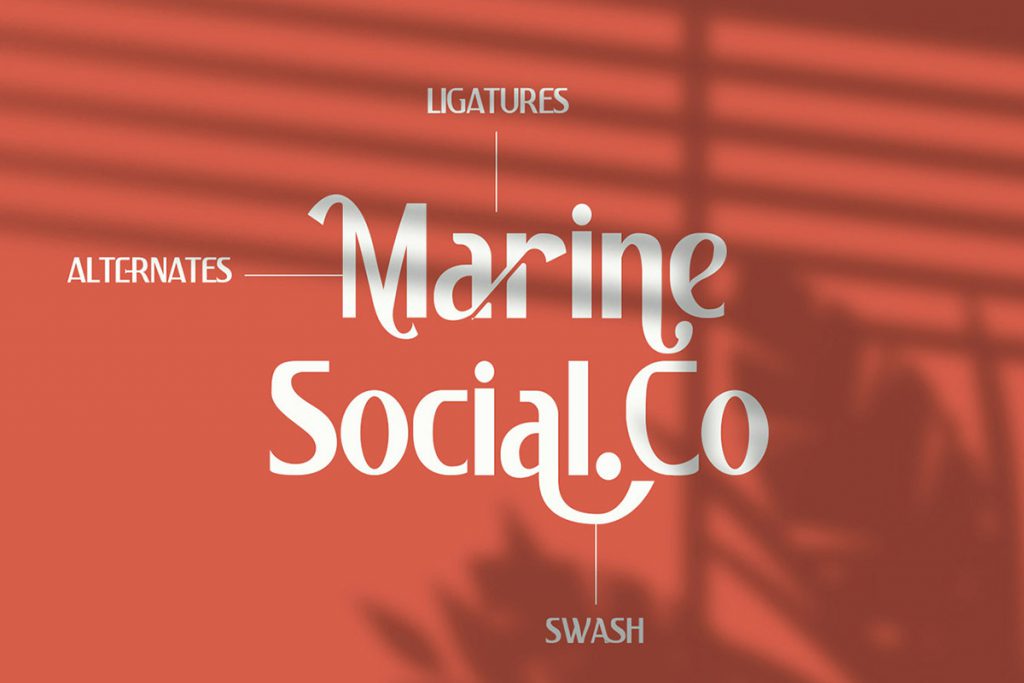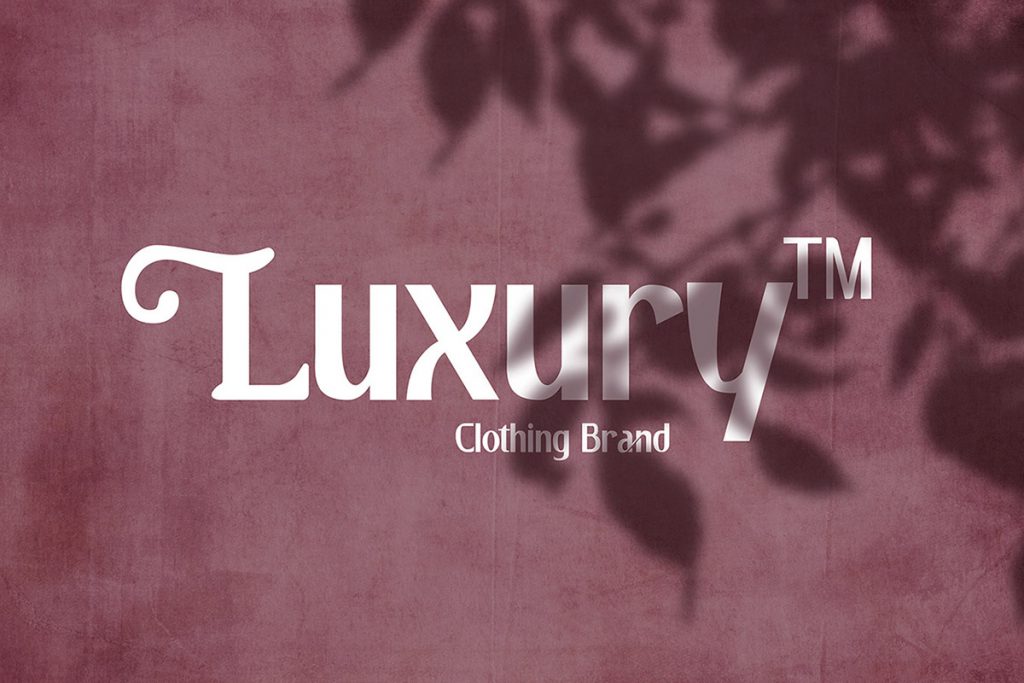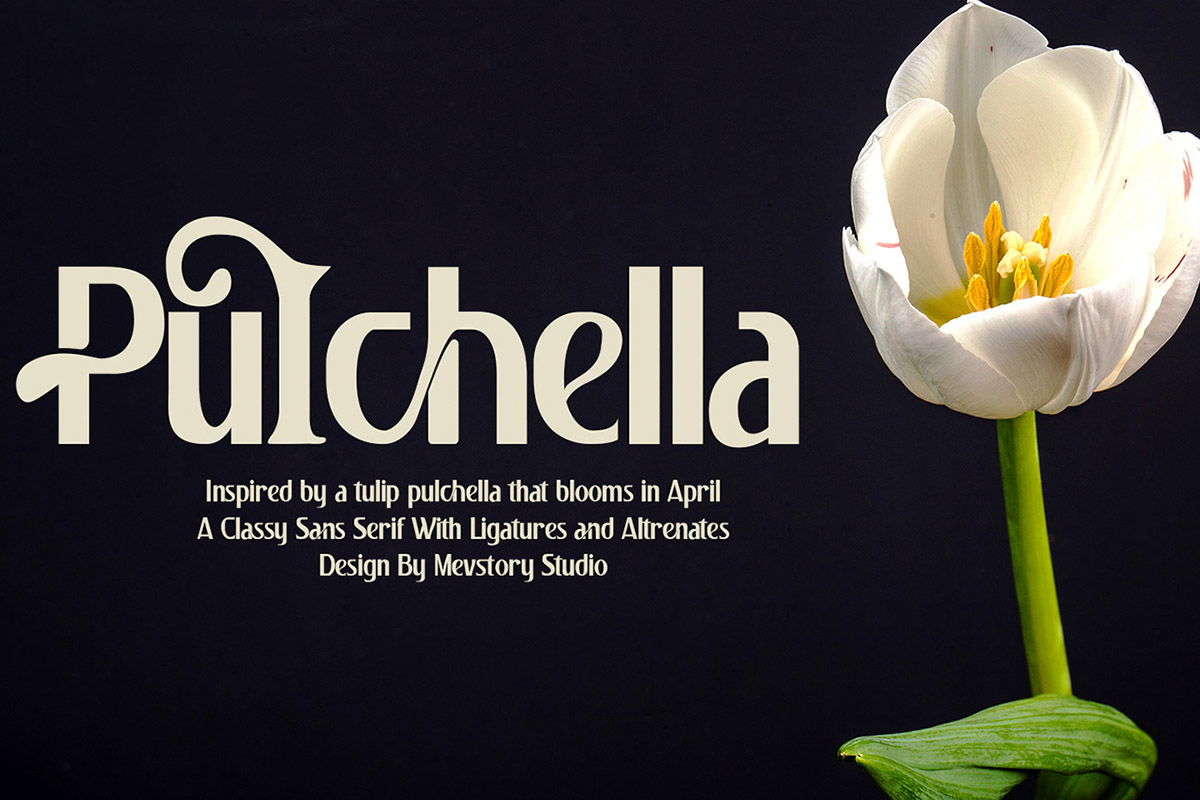
Pulchella Display: Serif Font
Pulchella Display Serif Font is a classy and modern sans serif typeface will pair beautifully with many other fonts. It contains uppercase, lowercase and number. As you can see, this font is great for logos, branding, invitations, stationery, social media, postcards, magazines, signboards, advertisements, stationery, and much more!